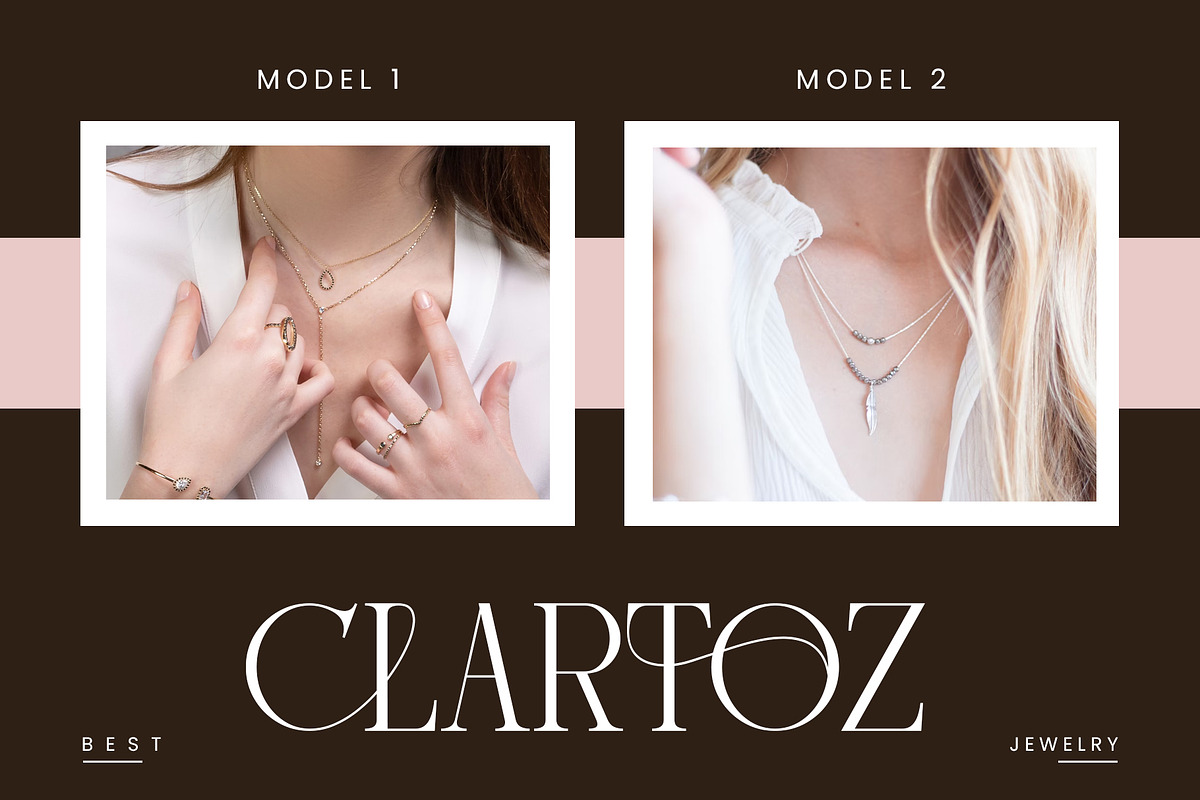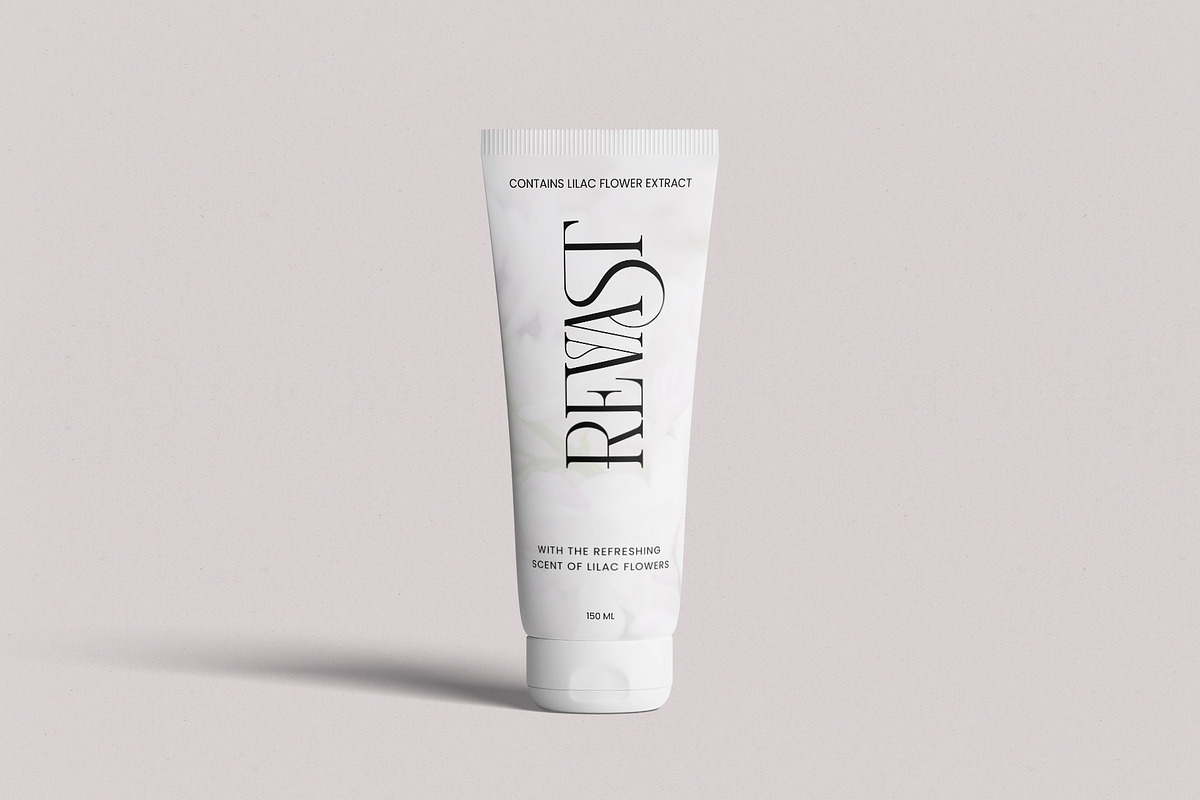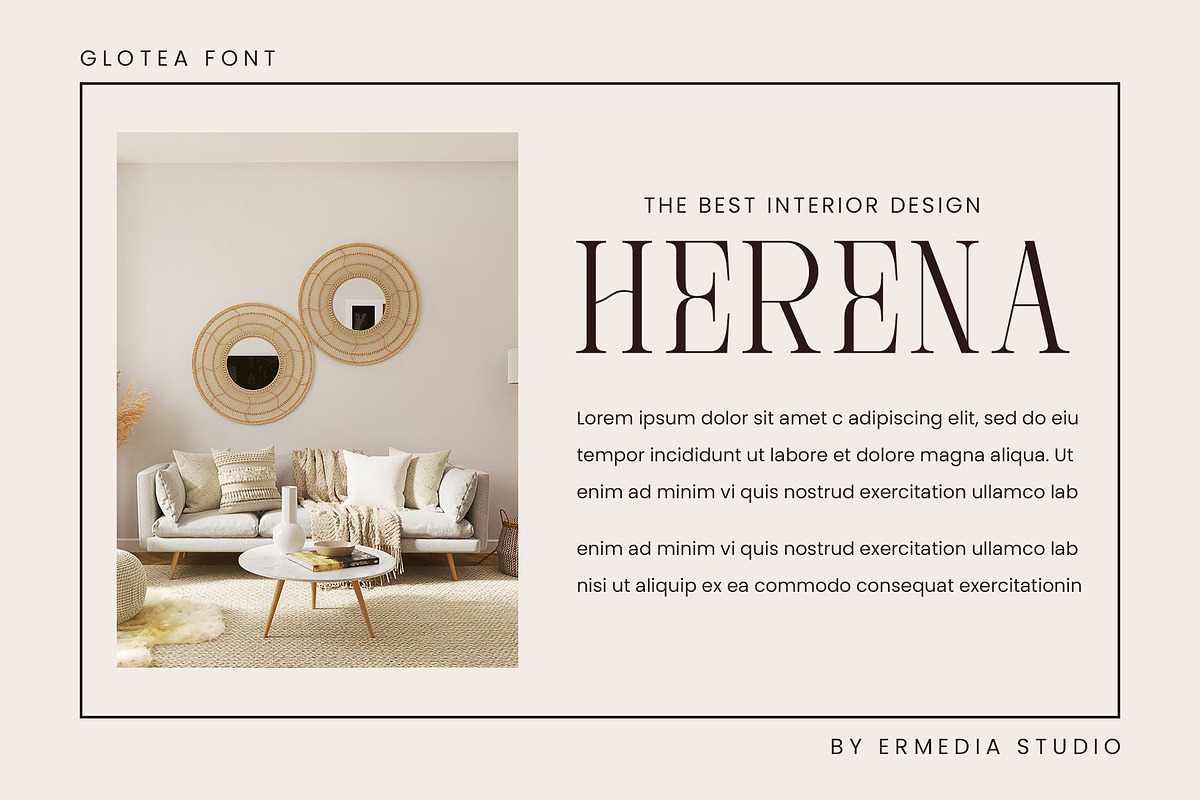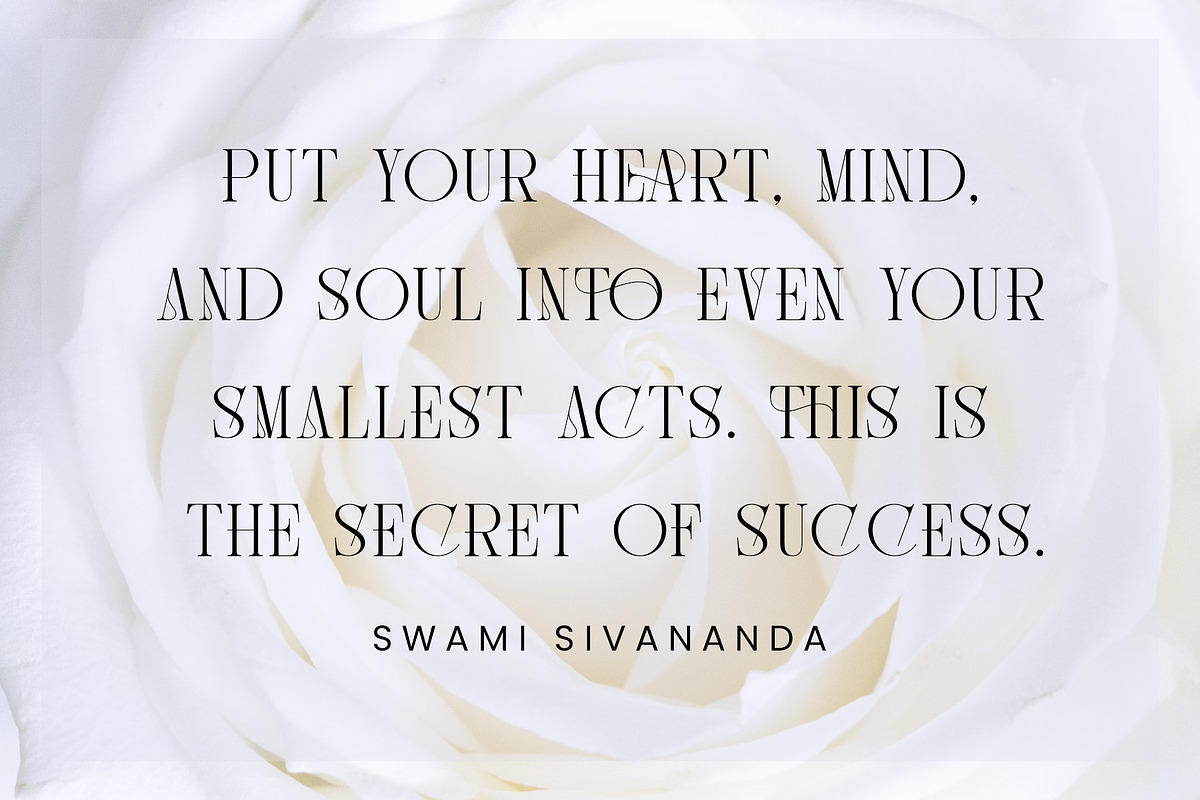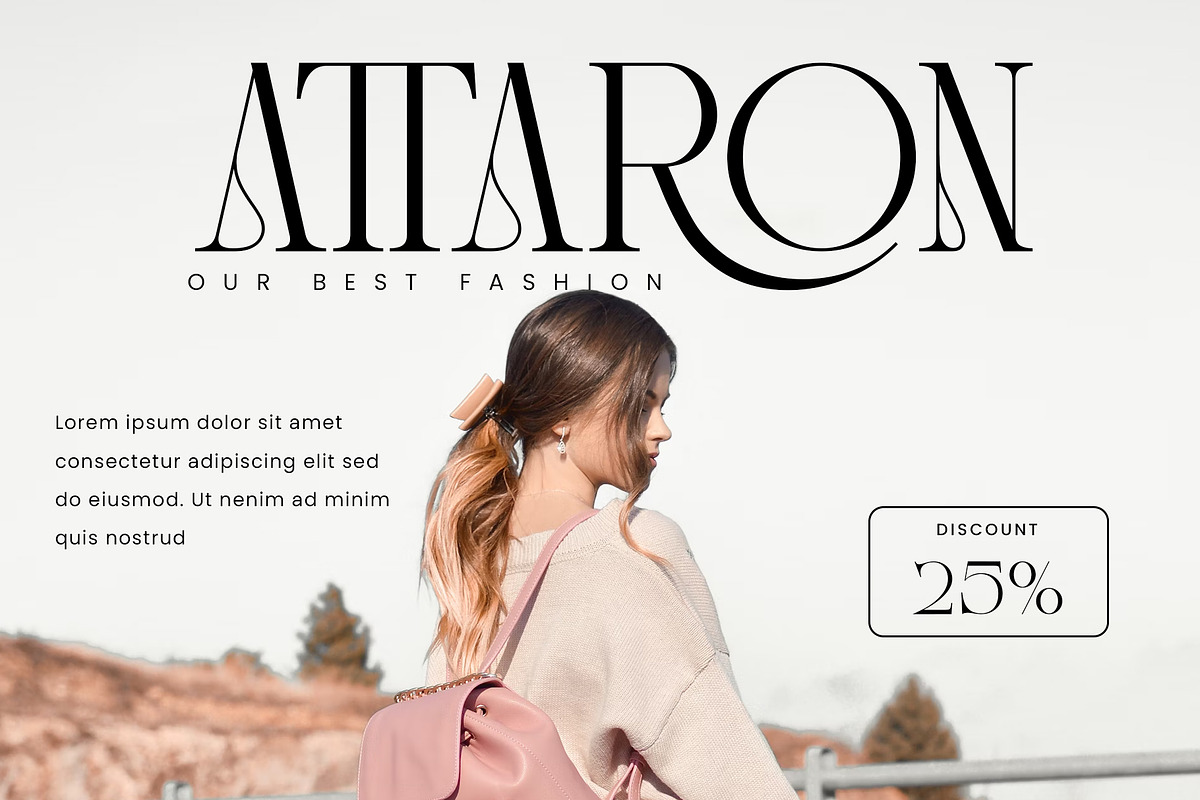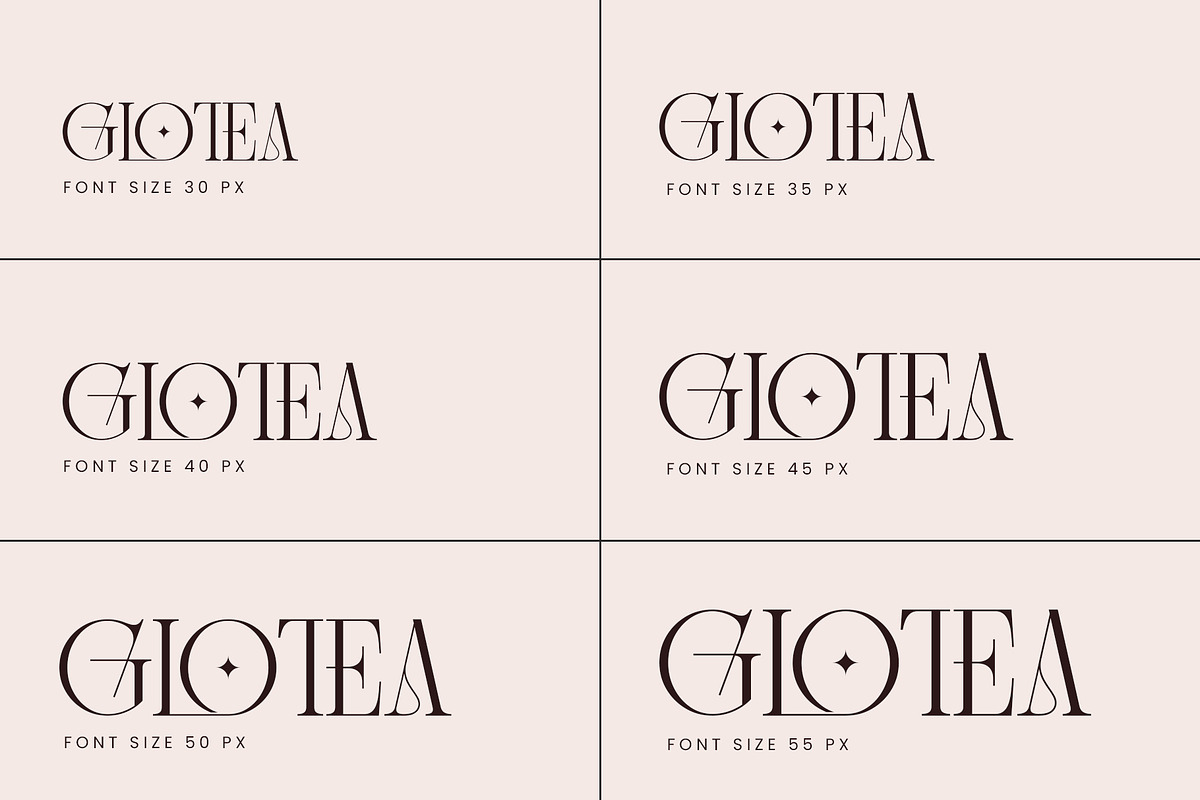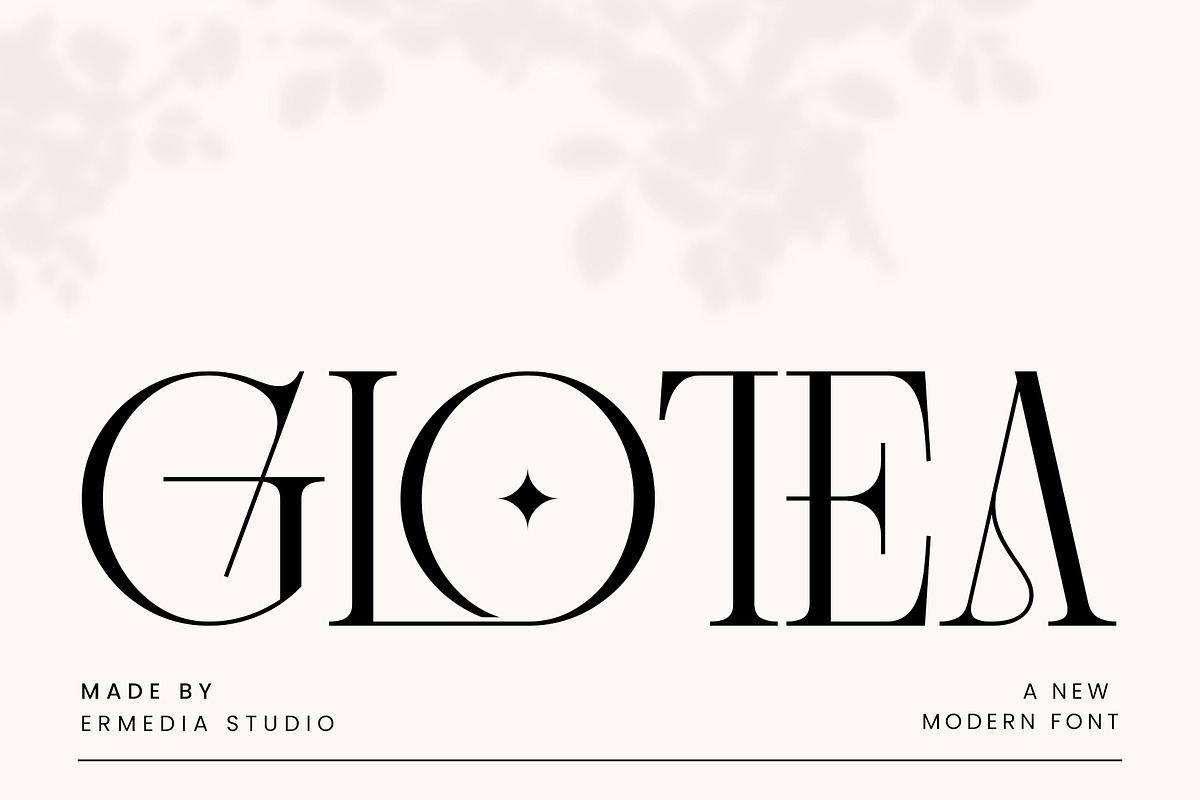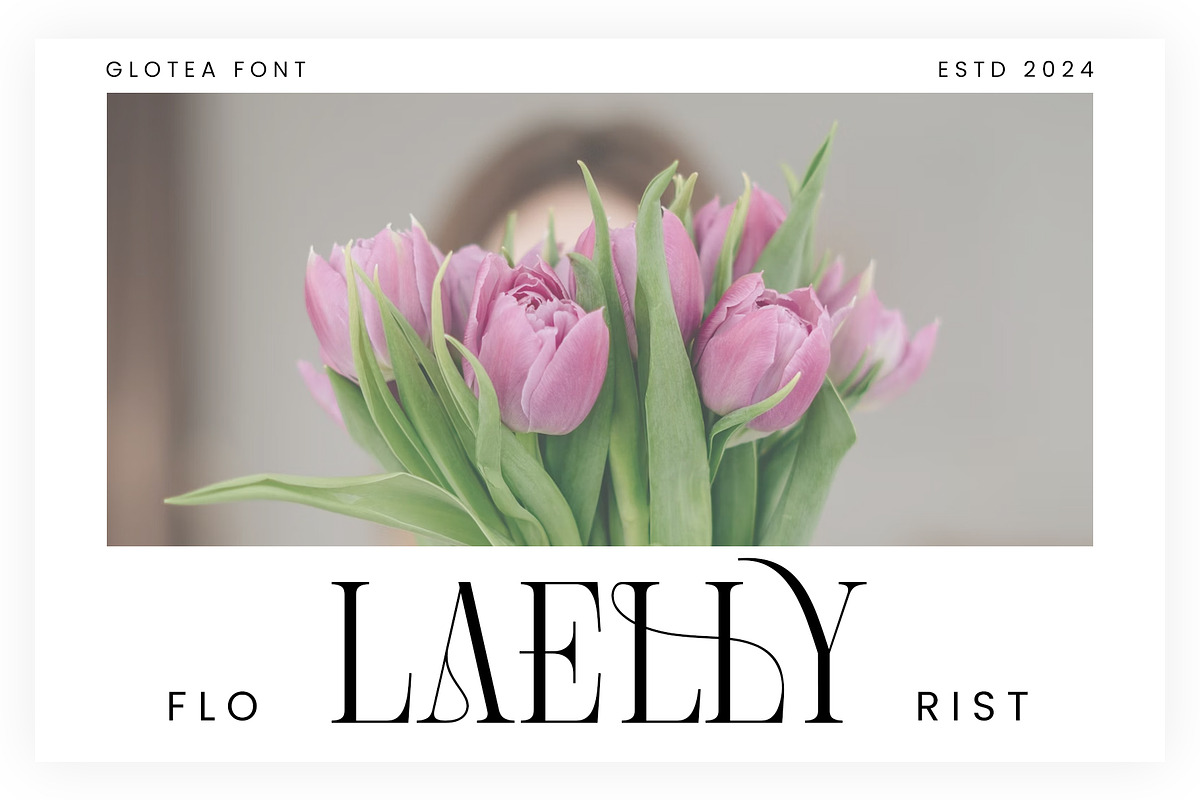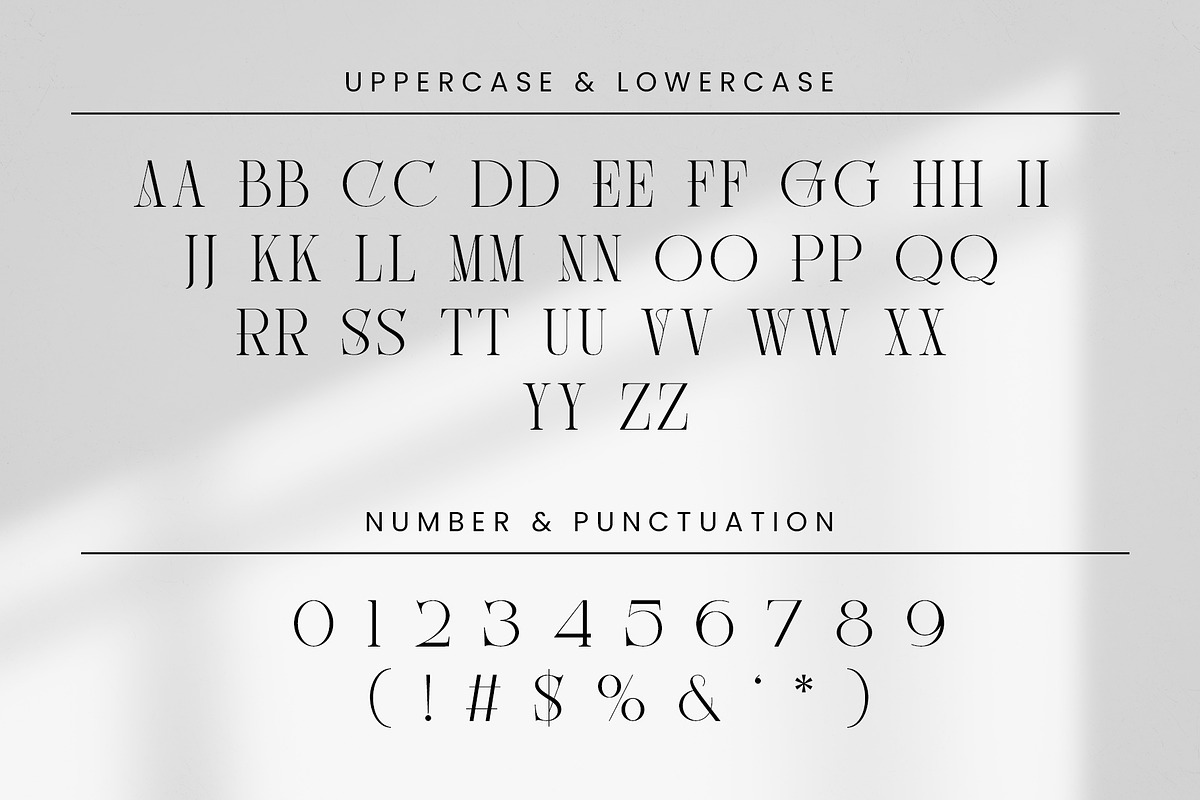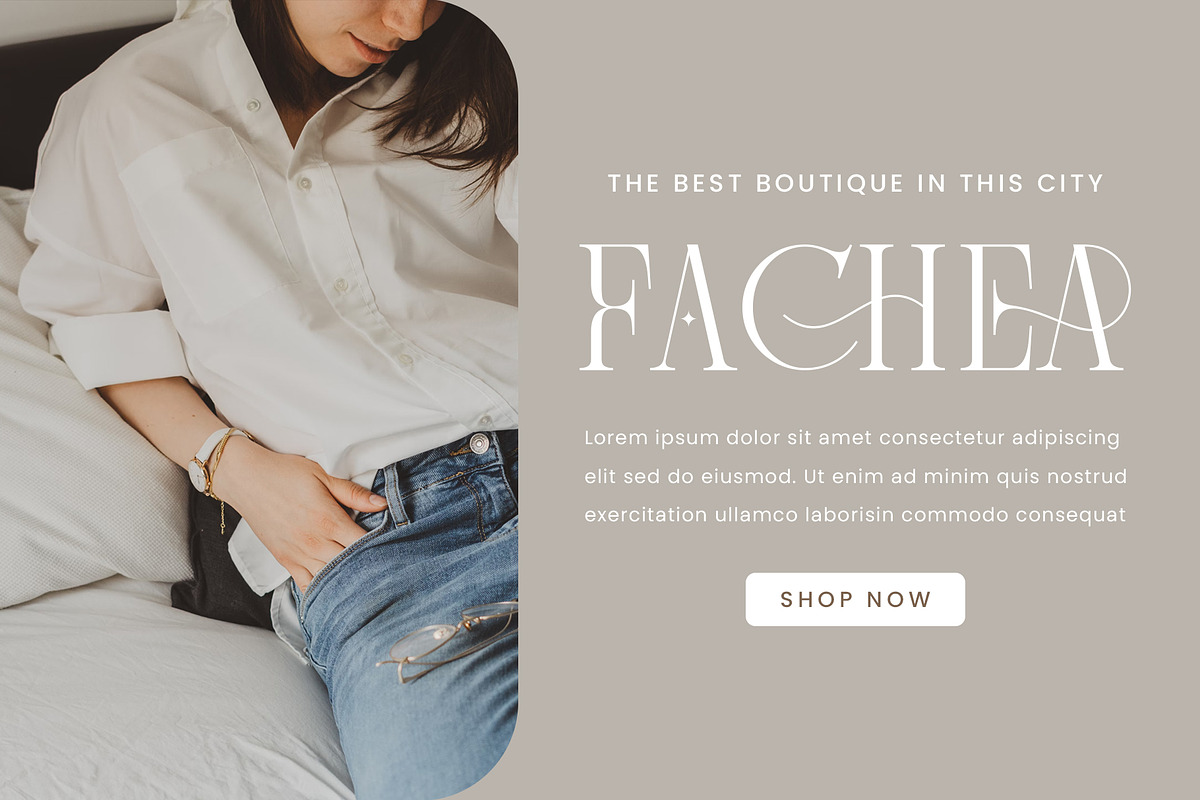
Glotea || Moedern Minimalist Serif
Introducing Glotea Serif Font: is a balanced, smooth, elegant and stylish serif font. This font comes with a large selection of beautiful and unique ligatures and alternatives. Very suitable to be combined with invitation card designs, company logos, film titles, film names, business cards, book titles, brand names and various other designs. Glotea Serif is a smooth serif font that exudes sophistication and elegance. This charming and stylish font makes it the perfect partner for any project.